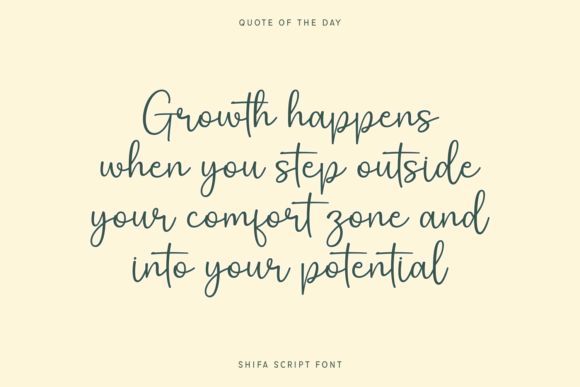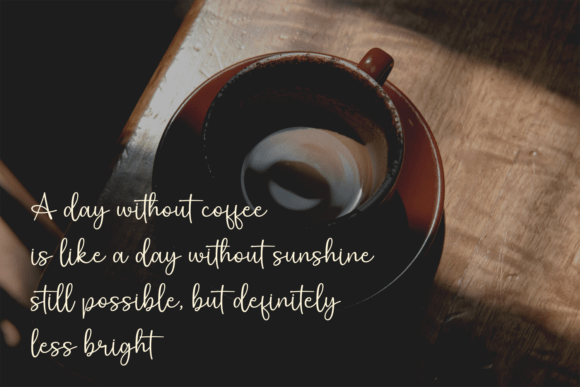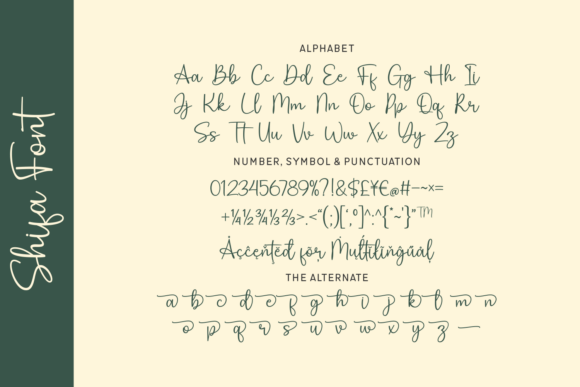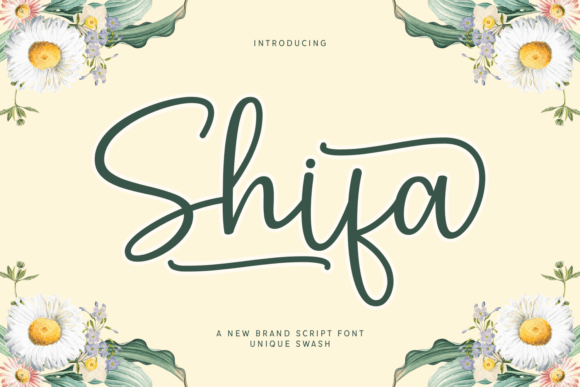
Introduction to Shifa Font
Shifa is a graceful script font with elegant swashes and soft curves that feel fresh and organic.
Perfect for floral branding, wedding invitations, and feminine stationery, it adds a gentle, romantic touch to any project .
Key Features of Shifa Font
Why Choose Shifa Font?
Shifa Font offers exceptional quality and versatility, making it a valuable addition to your design toolkit. Whether you’re creating for personal projects or commercial use, Shifa Font delivers professional results.